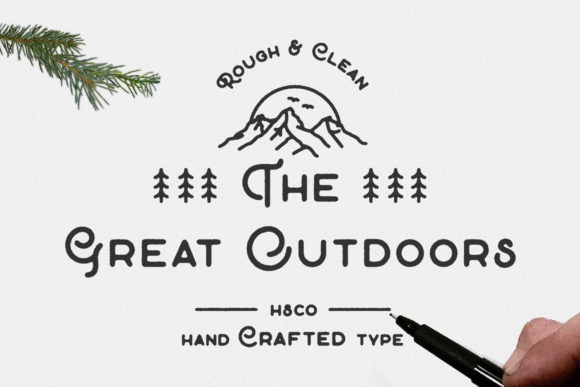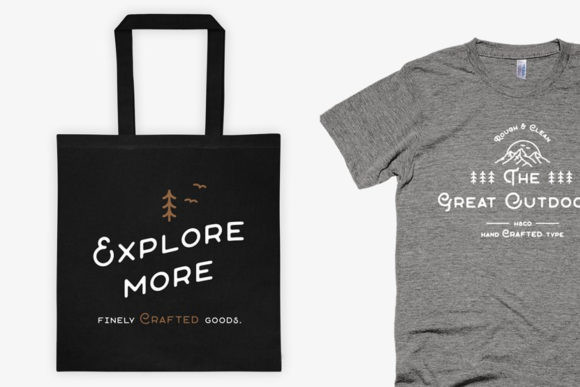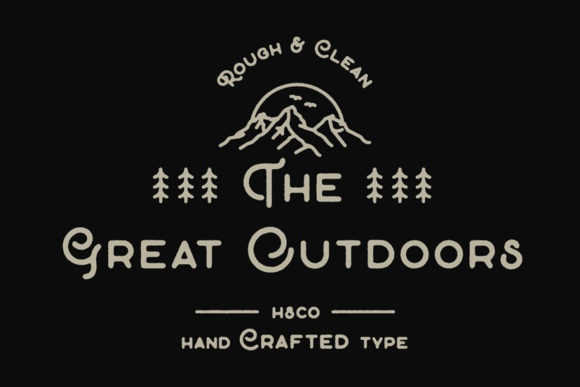
The Great Outdoors Font
The Great Outdoors is a cute and original display font. This is a versatile font that can be used in a wide variety of applications from creating amazing logos, to beautiful greeting cards- the only limit is your imagination!